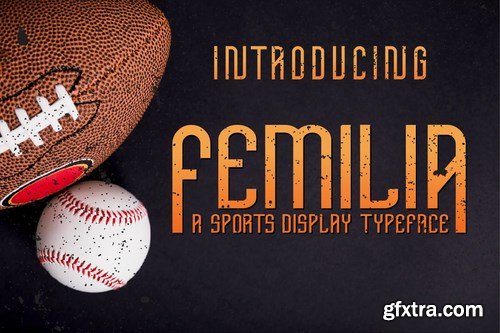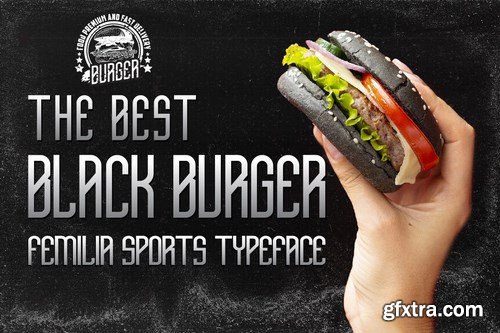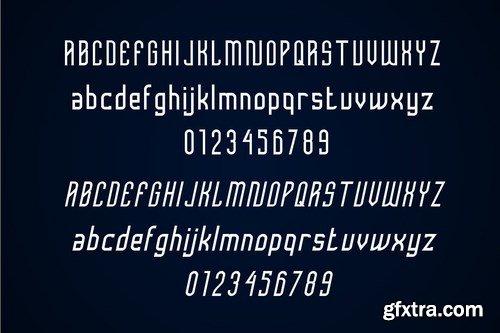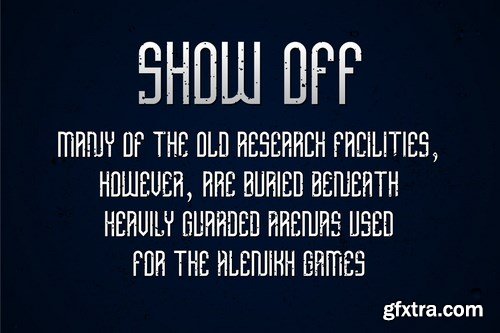
Femilia is a hand-lettered box and smooth Sans-serif. This font is awesome for your creative project such as Logotype, esports, Branding, Packaging, Merchandise, label, and much more.